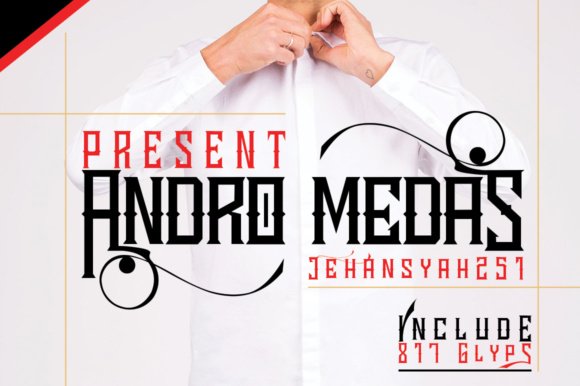
Unleash the Edge with the Andro Medas Font
Have you ever been inspired by the bold lines of a street art mural or the intricate details of a tattoo? For designers, the intersection of art and culture is a constant source of creative fuel. And for those who crave a typeface that captures the essence of urban edge, the Andro Medas Font is the perfect discovery.
With its striking display typeface, Andro Medas Font brings together the raw energy of tattoo and graffiti aesthetics with the sophistication of luxury design. This unique blend makes it a valuable asset for designers seeking to add an extra layer of depth to their projects.
Whether you’re working on a high-end fashion brand or a streetwear label, the Andro Medas Font is sure to elevate your visual identity and leave a lasting impression on your audience.
Andro Medas Font Key Features
- Font Size: The font comes in multiple sizes, ranging from 12 to 72 points, with scalable options for customization
- Resolution: Supports high-resolution displays with crisp and clear text rendering at resolutions up to 300 DPI
- Unique Characteristics: Andro Medas Font features a unique blend of modern and traditional design elements, making it suitable for a wide range of applications, from digital interfaces to print materials
- Language Support: Supports a broad range of languages, including Latin, Cyrillic, and Greek scripts, making it a versatile font for global audiences
- Font Style: Available in regular, italic, bold, and bold italic styles, providing flexibility for designers to create visually appealing typography
Andro Medas Font Review
I recently had the chance to work with the Andro Medas font, and I have to say it’s an interesting choice. ✨ One of the things that stands out to me is its unique blend of modern and vintage elements. The font has a distinctive feel that’s perfect for projects where you want to evoke a sense of nostalgia or retro charm.
Another strength of the Andro Medas font is its versatility. ✨ It’s available in a wide range of weights and styles, making it easy to find the perfect version for your specific design needs. Whether you’re looking for a bold, eye-catching headline font or a more subtle, elegant body text font, Andro Medas has got you covered.
What Doesn’t Work So Well
- ⚠️ The font can be a bit too ornate for some projects, making it difficult to read at smaller font sizes.
- ⚠️ Some of the weights and styles can feel inconsistent, which may require some tweaking to get the look just right.
- ⚠️ The font may not be the best choice for projects that require a lot of subtlety or nuance, as its distinctive style can be a bit overwhelming.
Overall, I think the Andro Medas font is a great choice for projects where you want to add a bit of personality and flair. While it may not be the best fit for every design, it’s definitely worth considering if you’re looking for a unique and eye-catching font. With a little experimentation and patience, you can unlock the full potential of this versatile and intriguing font.
Getting the Most Out of Andro Medas Font
For optimal results, use Andro Medas Font in bold or italic styles to add emphasis to your text. Experiment with different font sizes and line spacing to achieve a balanced and visually appealing design.
Andro Medas Font is ideal for use in creative and modern designs, such as:
– Digital signage and advertisements
– Infographics and data visualizations
– Editorial and publishing content